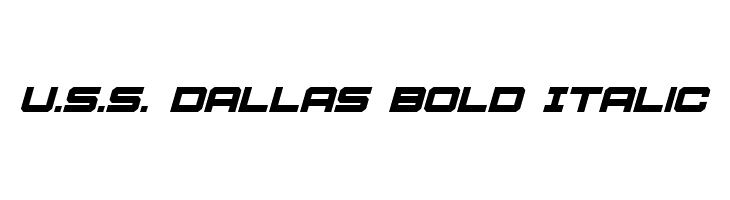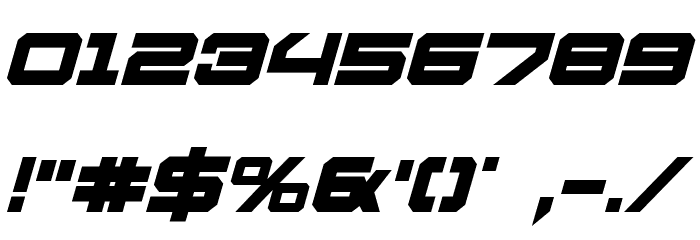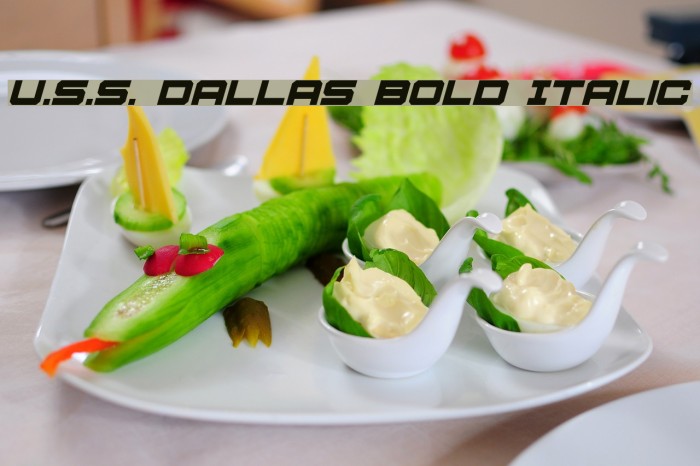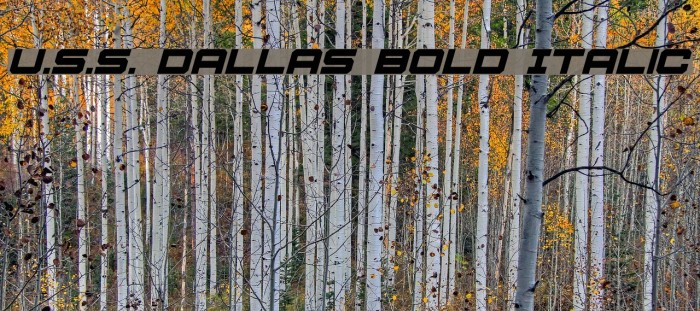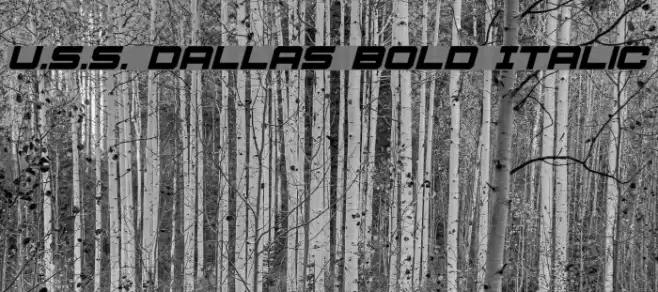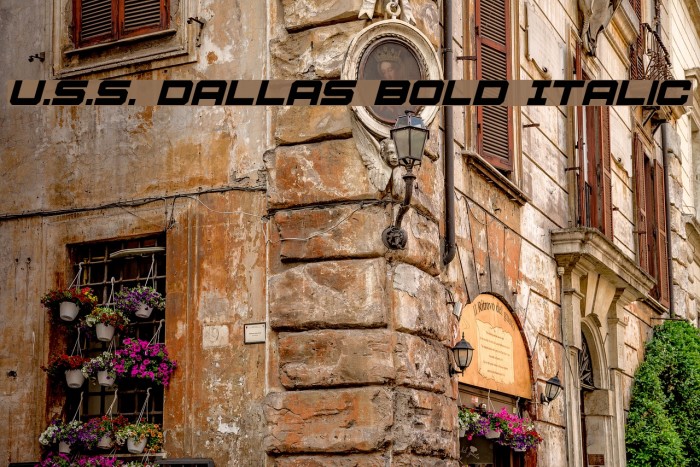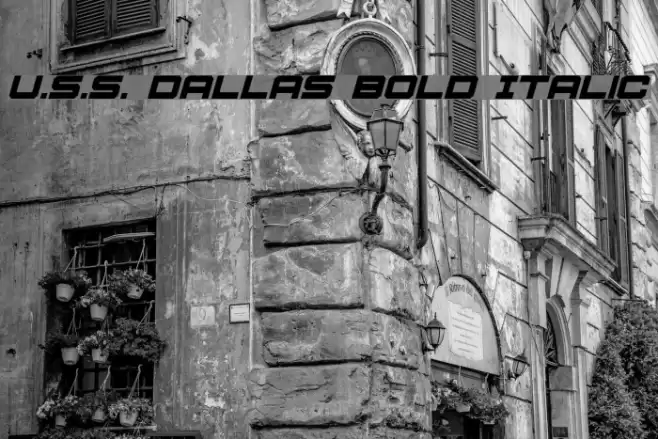
U.S.S. Dallas Bold Italic Font
U.S.S. Dallas Bold Italic Description
This font exhibits a bold and italicized style with a futuristic and angular design. The characters are sharply defined with a consistent slant, giving a sense of motion and speed. The uppercase and lowercase letters maintain a uniform width, contributing to a cohesive appearance. The numerals and special characters follow the same angular theme, ensuring visual harmony across all elements. The font's bold weight and italic style make it stand out, ideal for attention-grabbing applications.
| Proposed Projects | Perfect for sci-fi themed projects, video game titles, technology branding, and dynamic posters. |